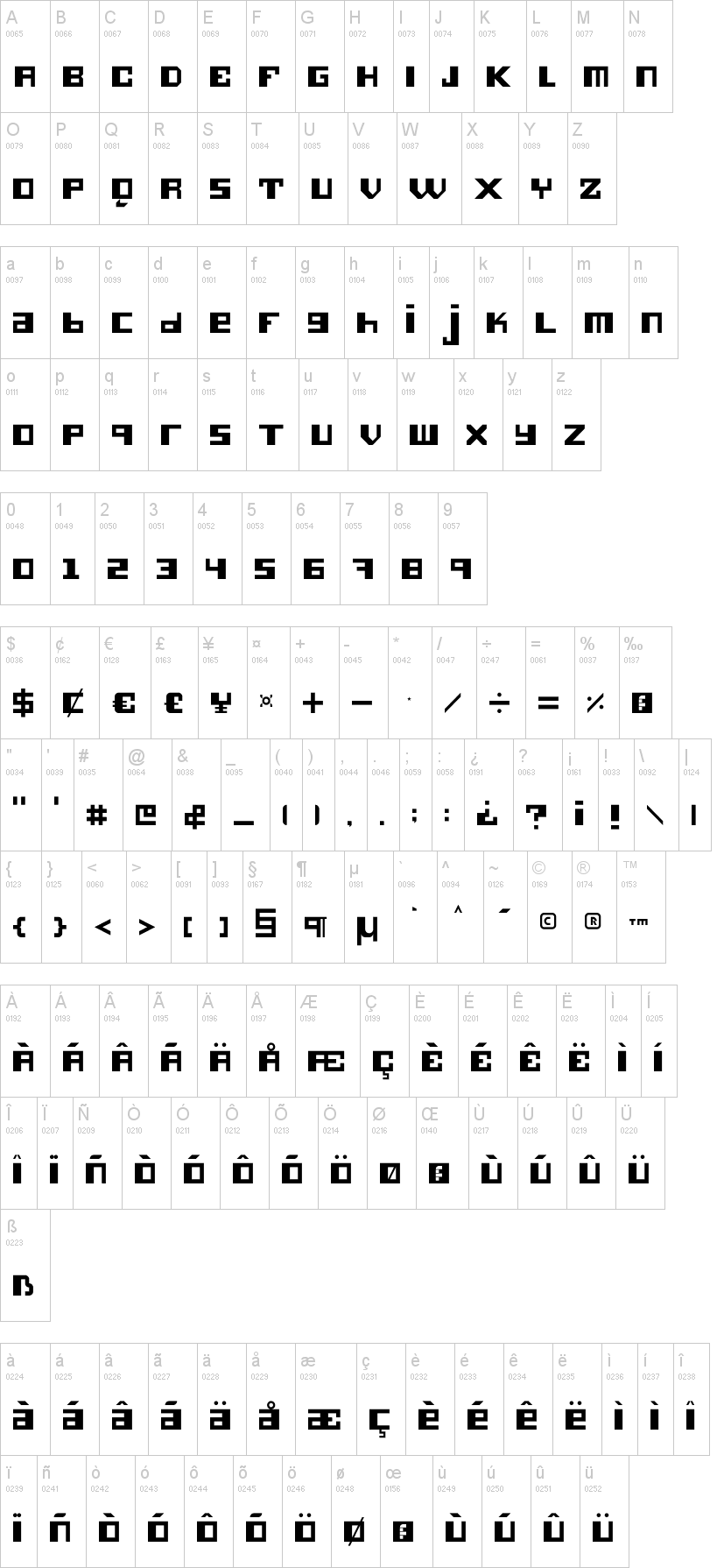
Шрифт Hieronimus
Hieronimus is a bold and strong typeface inspired in bauhaus designs and russian constructivism posters, but with a modern touch to it.